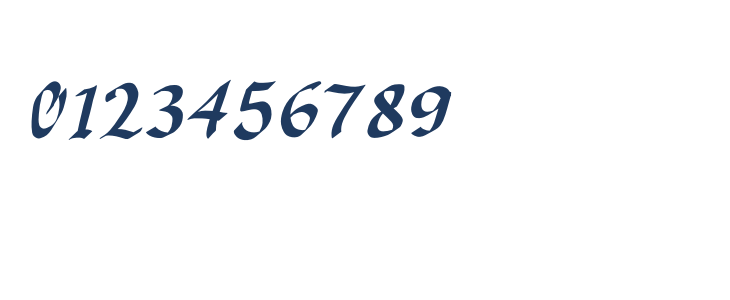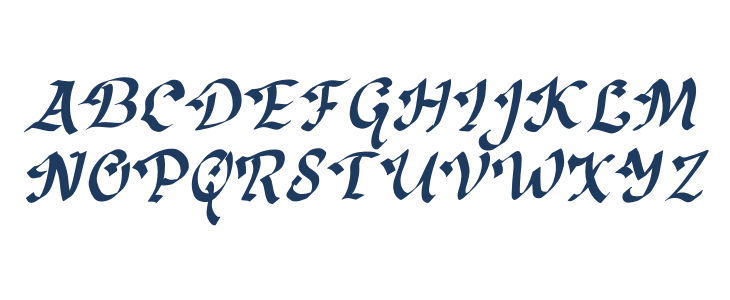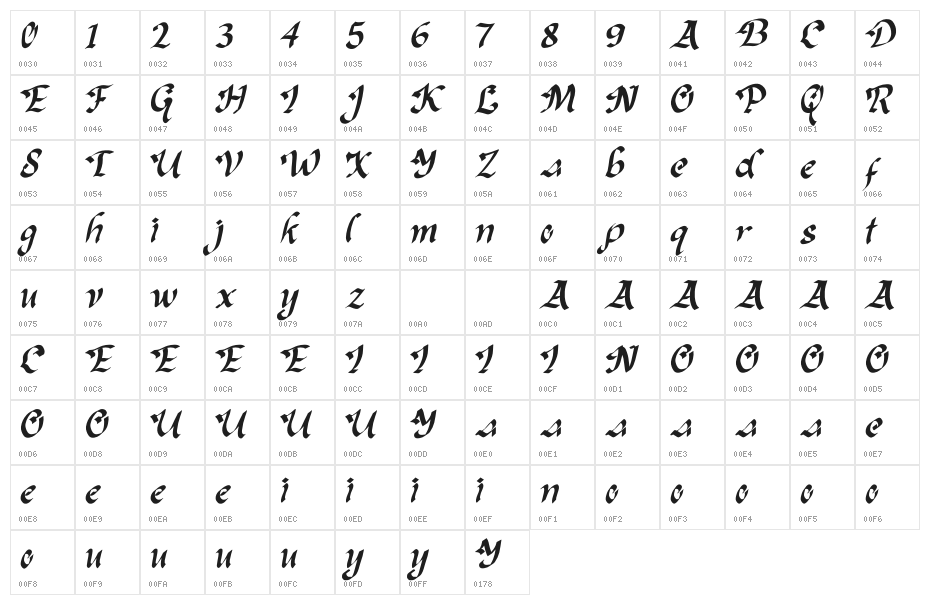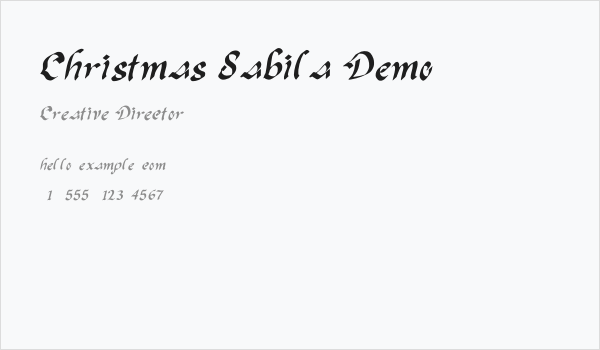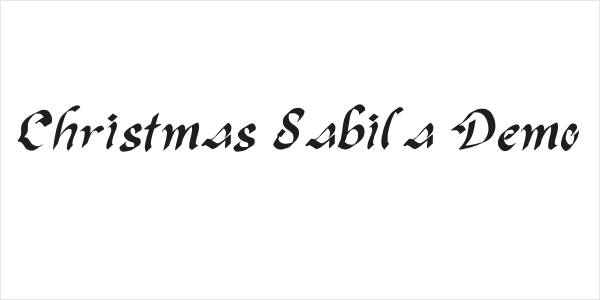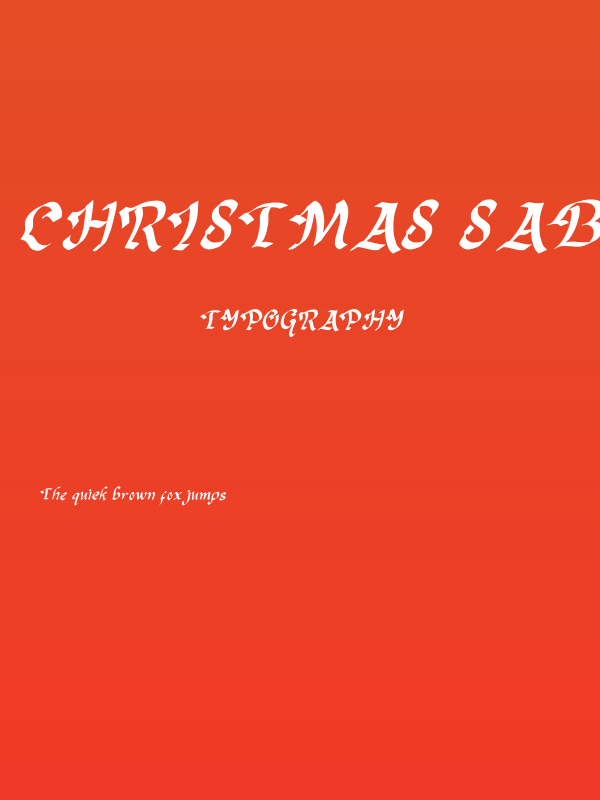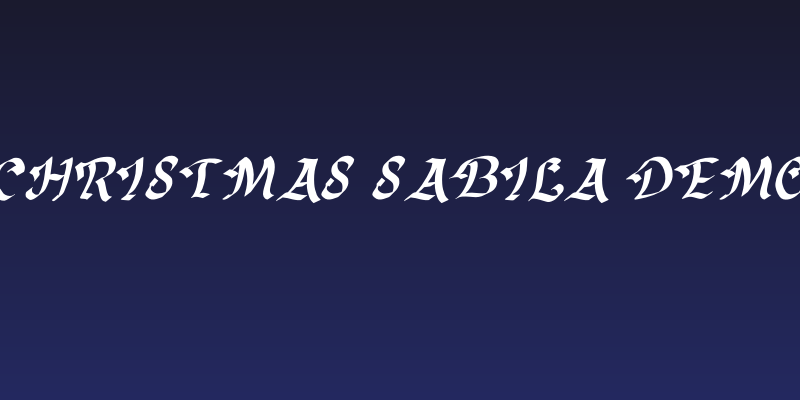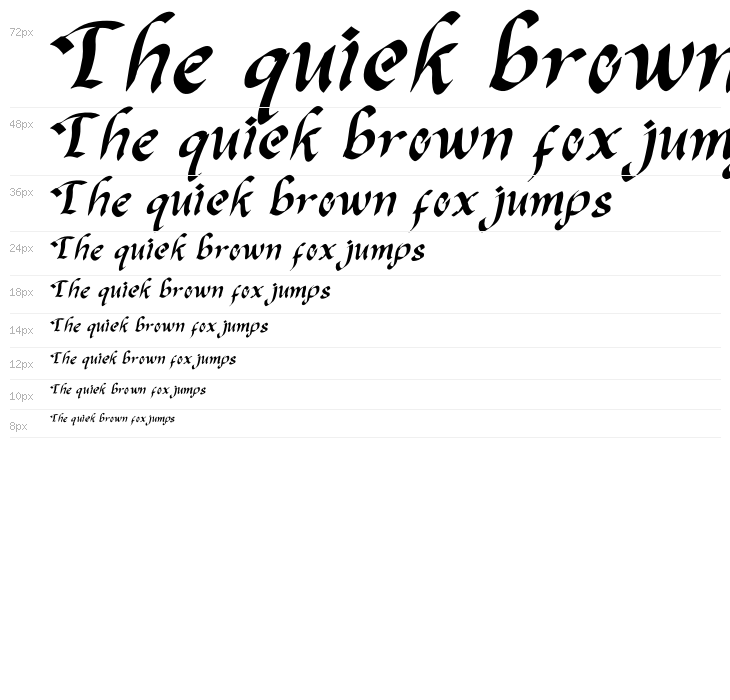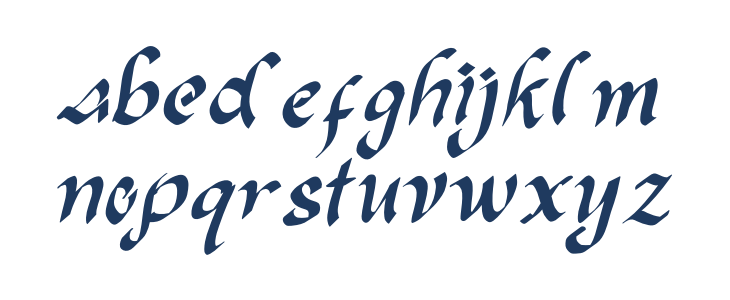
Christmas Sabila Demo Font
Christmas Sabila Demo Description
A decorative script font with a calligraphic, blackletter-inspired style, featuring dramatic strokes, sharp angles, and high contrast between thick and thin lines. The characters have ornate flourishes and a hand-drawn appearance, evoking a festive or historical feel.
| Overall Style | Decorative, Festive, Vintage |
| Use Case | Headlines, Logos, Decorative text, Holiday materials |
| Proposed Projects | Holiday cards, event invitations, festive branding, decorative headlines, posters. |